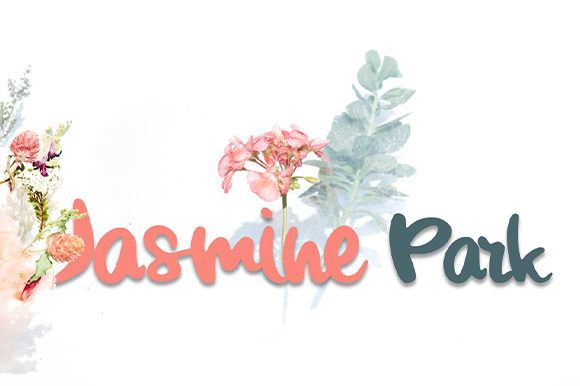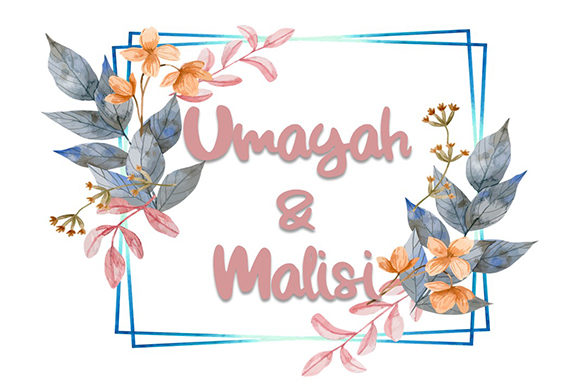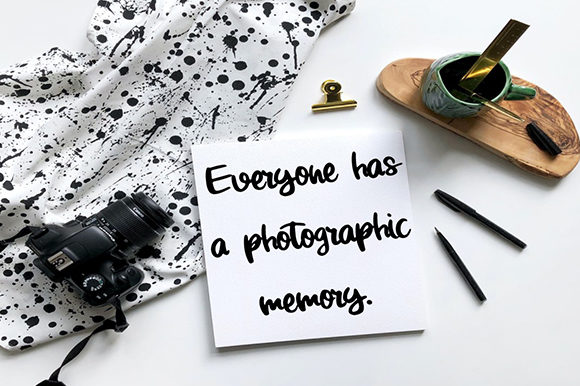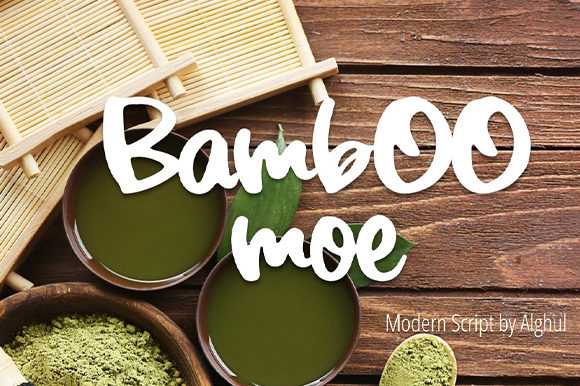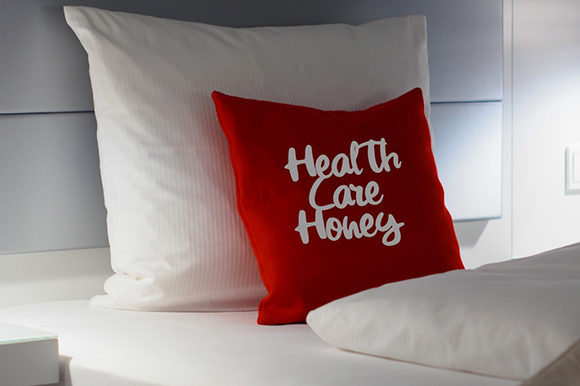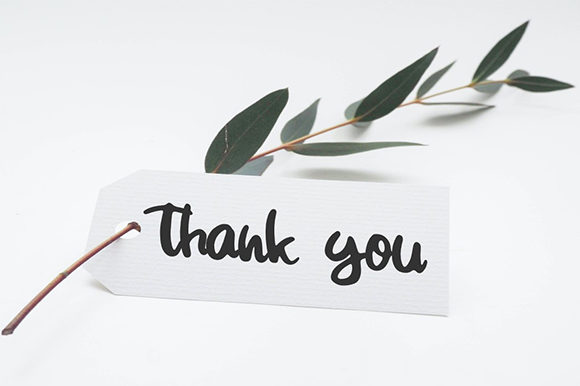
Bamboomoe
About Bamboomoe Font
Bamboomoe is a spectacular handwritten font. Fall in love with it and bring your projects to the highest levels. It’s perfect for for wedding invitations, thank you cards, quotes, greeting cards, logos, business cards, and more.